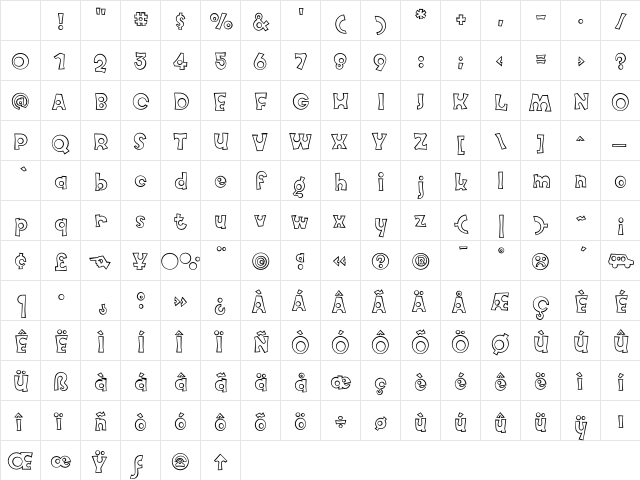
Complete Knobcheese Outline glyph index. Displaying only characters natively supported by Knobcheese Outline font.
Knobcheese is built around its visual character rather than neutral utility - its distinctive forms are designed to make an impression at display sizes.
Font Pairing: Pair with a clean neutral sans-serif for body copy to let Knobcheese's character lead without overwhelming the composition.
Pro Tip: Use Knobcheese exclusively at display sizes - it was designed to be seen, not read at length. Let a neutral companion handle body copy.